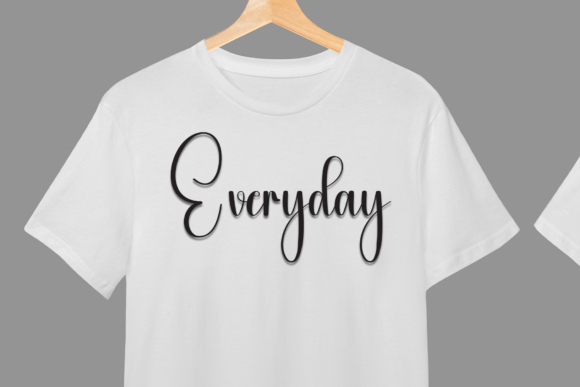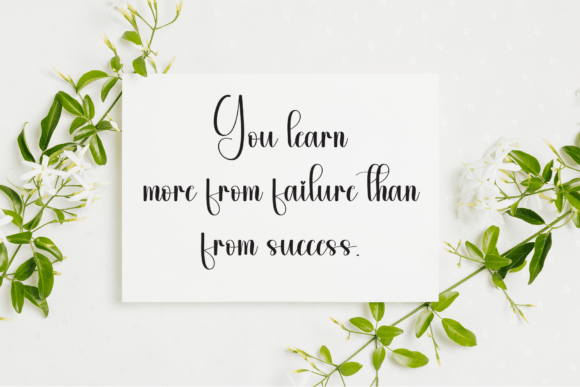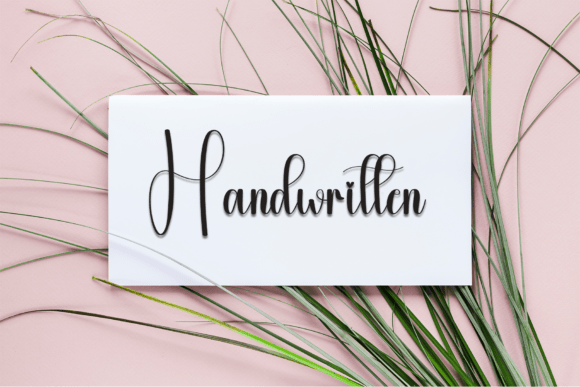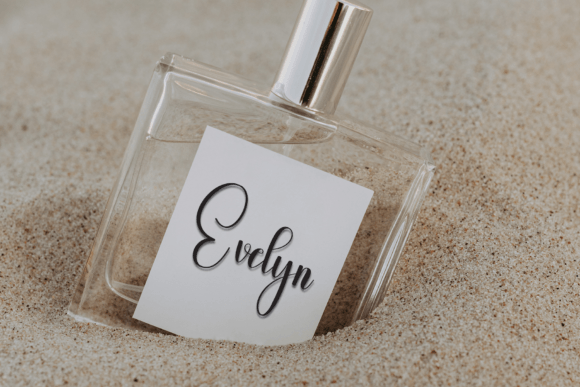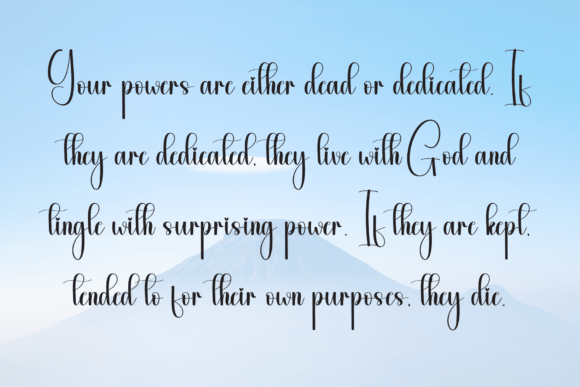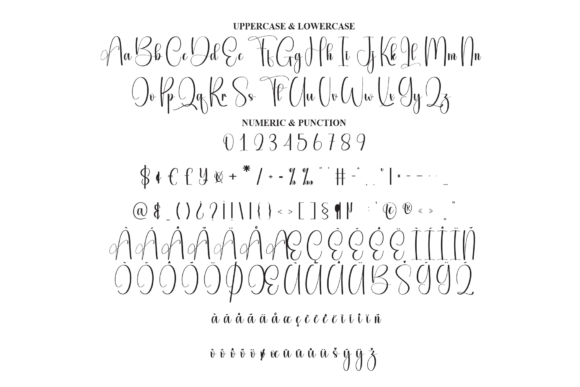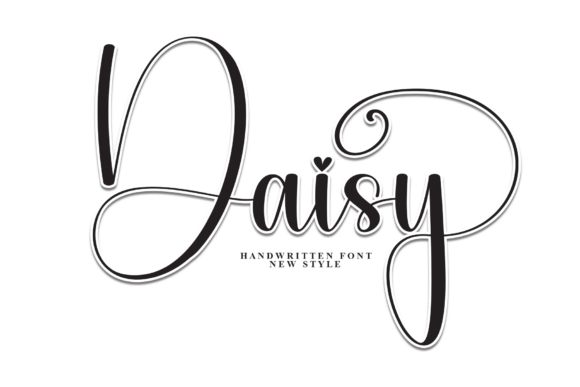
Daisy Font: Elevate Your Designs with Elegance and Sophistication
In the world of typography, few fonts manage to strike a balance between elegance and modernity as effortlessly as Daisy Font. This stylish script font is a masterpiece of contemporary design, boasting graceful strokes, fluid curves, and meticulously crafted letterforms that bring a touch of hand-drawn calligraphy to the digital age. Whether you’re a designer looking to elevate your branding, a crafter seeking the perfect font for your DIY projects, or simply someone who appreciates the beauty of typography, Daisy Font is sure to captivate.
The Essence of Daisy Font
Daisy Font is more than just a collection of letters; it’s an expression of style and sophistication. Its design is rooted in the principles of traditional calligraphy but infused with a modern twist that makes it versatile and fresh. Each letterform is carefully crafted to ensure that the font flows naturally, making it perfect for a wide range of applications, from logos and invitations to packaging and social media graphics.
Key Features of Daisy Font
- Elegant and Contemporary Design: Daisy Font embodies a stylish script that exudes elegance and a contemporary charm, making it ideal for designers who want to add a refined touch to their work.
- Graceful Strokes and Fluid Curves: The font features graceful strokes and fluid curves that give it a natural, hand-drawn feel, adding warmth and personality to any design.
- Versatility: With its versatile design, Daisy Font can be used across various platforms and design projects, ensuring consistency and professionalism.
- Polished Details: The attention to detail in Daisy Font is evident in its polished letterforms, which contribute to its sophisticated and luxurious feel.
Applications of Daisy Font
The versatility of Daisy Font makes it suitable for a myriad of design applications. Here are some of the most popular uses:
- Logo Design: Create a lasting impression with a logo that exudes elegance and professionalism. Daisy Font’s unique style ensures that your brand stands out.
- Invitations and Stationery: Add a touch of sophistication to your invitations, greeting cards, and stationery with Daisy Font’s elegant and refined appearance.
- Packaging Design: Elevate your product packaging with a font that communicates luxury and quality. Daisy Font can help your product stand out on crowded shelves.
- Social Media Graphics: Enhance your social media presence with graphics that incorporate Daisy Font. Its modern charm is sure to engage your audience and boost your brand’s aesthetic.
Why Choose Daisy Font?
In a sea of fonts, Daisy Font stands out for several reasons:
- Unique Style: Its blend of traditional calligraphy and modern design elements makes it a unique addition to any designer’s toolkit.
- Readability: Despite its elegant and cursive nature, Daisy Font maintains a high level of readability, making it suitable for both headings and body text.
- Customization: The font comes with a range of customization options, allowing designers to adapt it to their specific needs and preferences.
Daisy Font is a stylish script font that brings a blend of elegance, sophistication, and modern charm to the world of typography. Its graceful strokes, fluid curves, and carefully crafted letterforms make it an ideal choice for designers and crafters looking to add a refined touch to their projects. Whether you’re working on a logo, invitation, packaging, or social media graphics, Daisy Font offers the versatility and visual appeal needed to elevate your designs. With Daisy Font, you can create stunning visuals that leave a lasting impression on your audience.
With Daisy Font, the possibilities are endless. Embrace the elegance and modernity it brings to your designs, and watch as your projects transform with a touch of sophistication and charm.